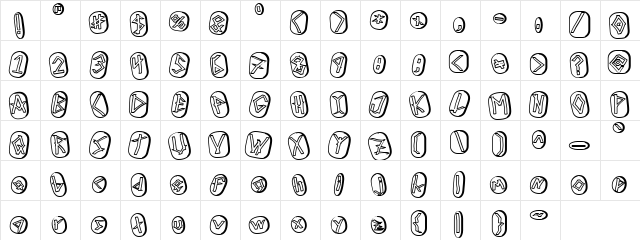
Runez of Omega Two Regular
Design Context for Runez of Omega Two Typeface
Runez of Omega Two is a composed and adaptable typeface that performs quietly and consistently across a wide range of design contexts.